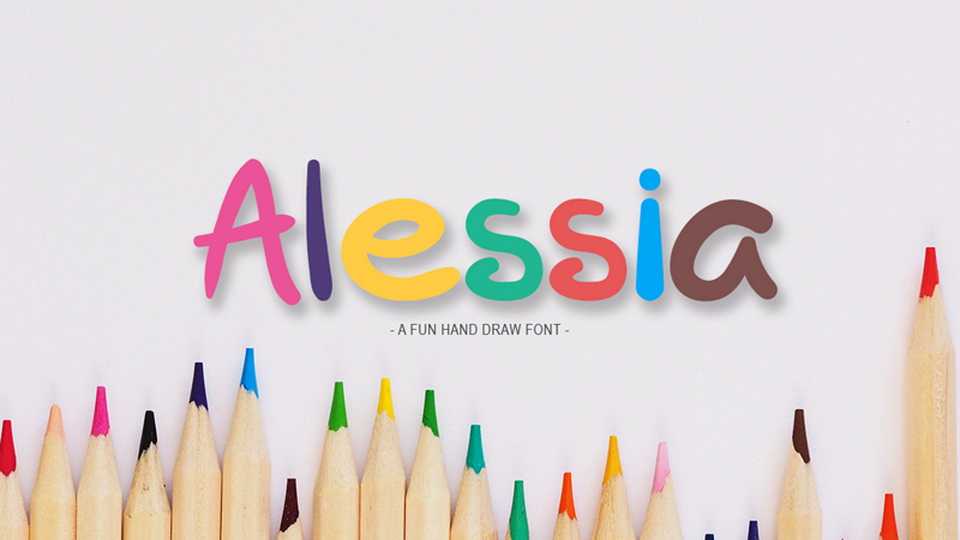
Download Alessia font, a fun and friendly hand draw script. Alessia font looks great for notes, quotes, comics, kids products, crafts and a lot of everyday designs.
Designer: NousID Studio